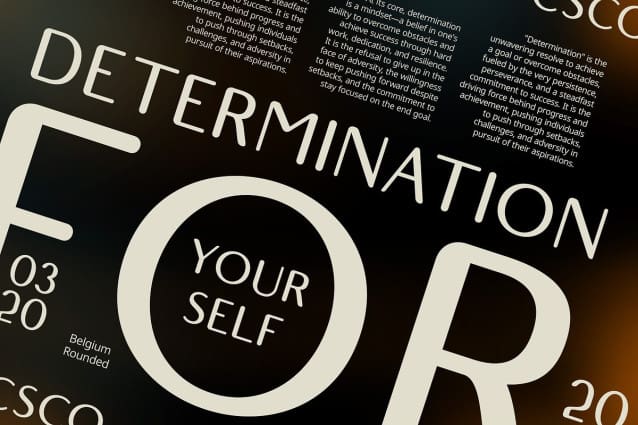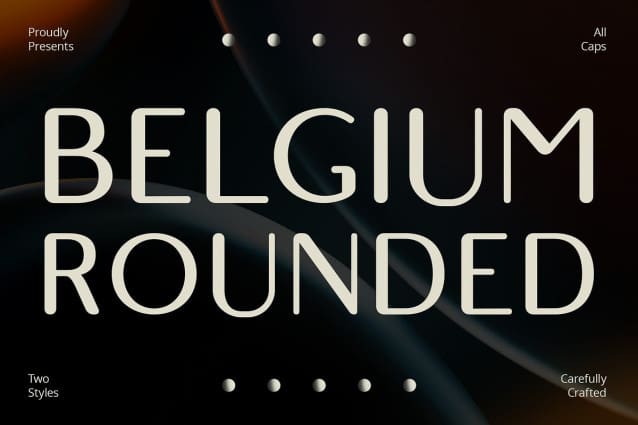
Belgium Rounded Font
Belgium Rounded Font: The Modern Sans Serif. Contemporary Charm Belgium Rounded exudes a modern vibe with its sleek sans serif style and rounded stem endings. Its design reflects contemporary aesthetics, perfect for a wide range of projects.
Friendly and Approachable The rounded stem endings of This font lend a friendly and approachable feel to the font, making it ideal for creating welcoming and inclusive designs.
Professional Appeal Despite its friendly appearance, This font maintains a professional edge, suitable for corporate branding, presentations, and other professional contexts.
Versatile Usage From website interfaces to product packaging, This font adapts effortlessly to various design needs, offering versatility and reliability in every application.
Modernity with a Friendly Touch This font strikes the perfect balance between modernity and approachability. Its rounded stem endings add a touch of friendliness without compromising its professional appeal, making it a versatile choice for a wide array of design projects.